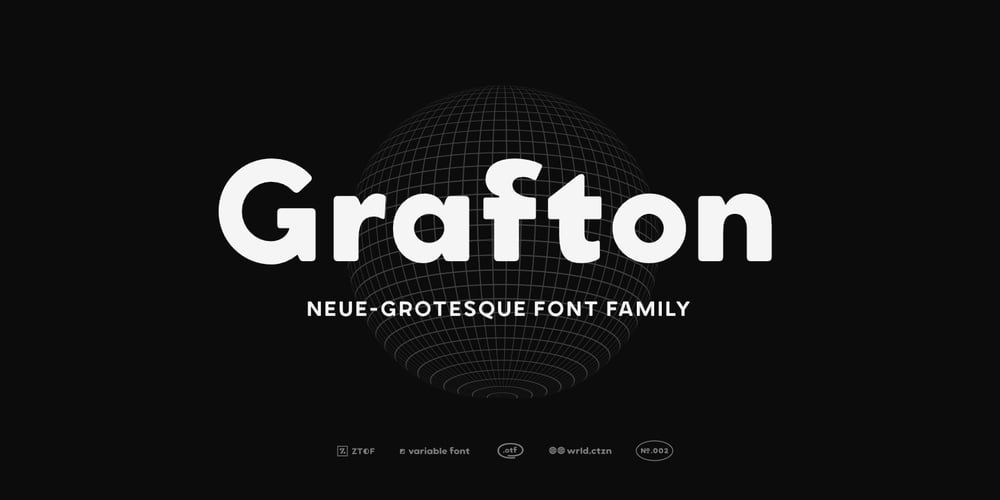
ZT Grafton
ZT Grafton font
ZT Grafton Font Family was designed by D Sandi Sjahputra and published by Zeune Type Foundry. ZT Grafton contains 9 styles and family package options. ZT Grafton is a neo-grotesque typeface based on geometric shapes with contemporary, friendly, and strong emotion. ZT Grafton was built from scratch to be calm, smooth, and clean, while subtle humanist influences add warmth to this typeface.It’s available in 8 weights and includes the exciting variable font format.